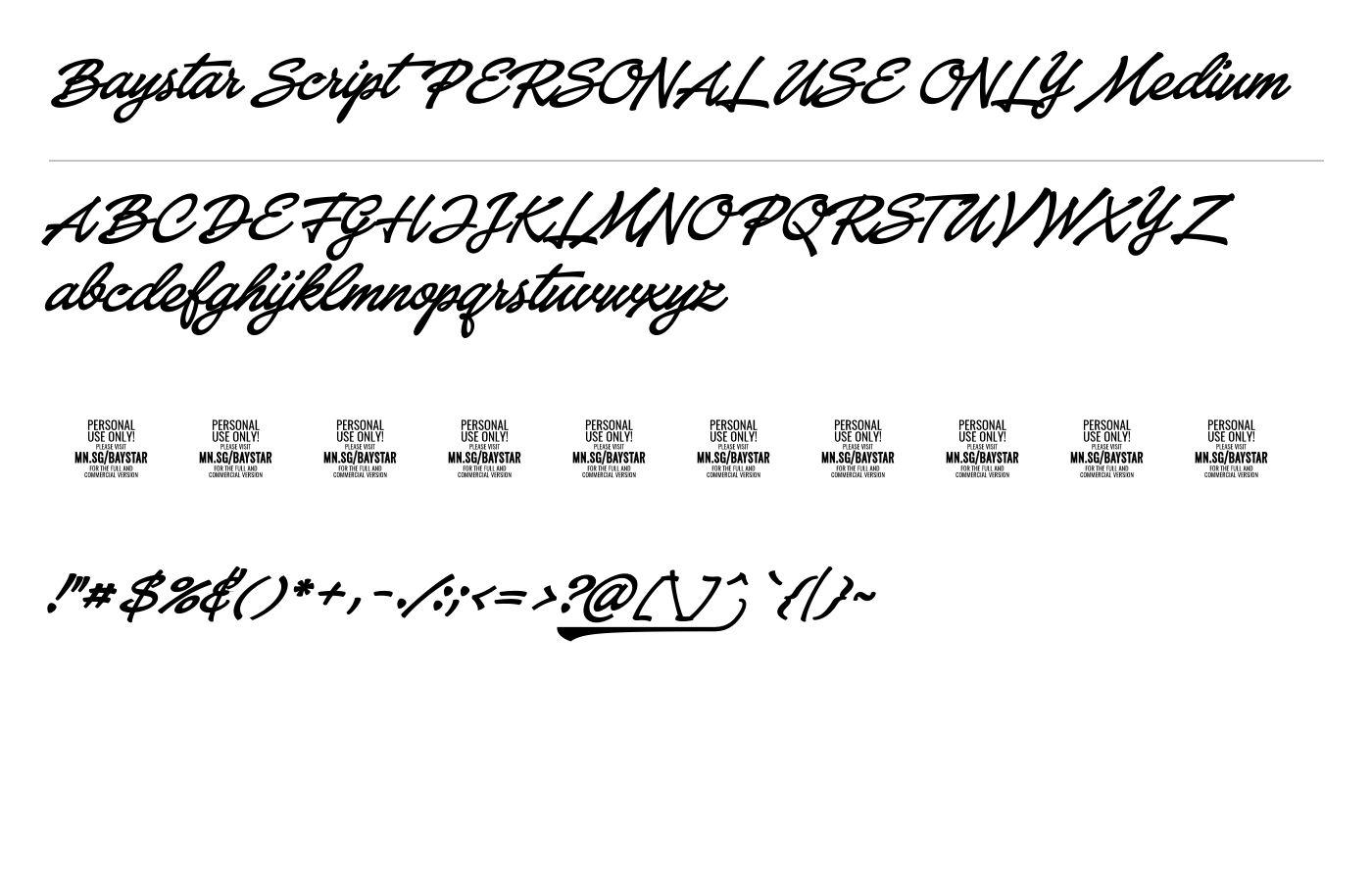
Baystar Script is a lively and elegant script font featuring smooth, medium-weight strokes with a casual yet refined style. Its flowing, connected letterforms and slightly slanted posture give it a friendly and approachable feel, making it an excellent choice for personal branding, invitations, and creative projects that seek a modern, handwritten touch. This font works particularly well in logos, headlines, and decorative text where a sense of warmth and sophistication is desired.